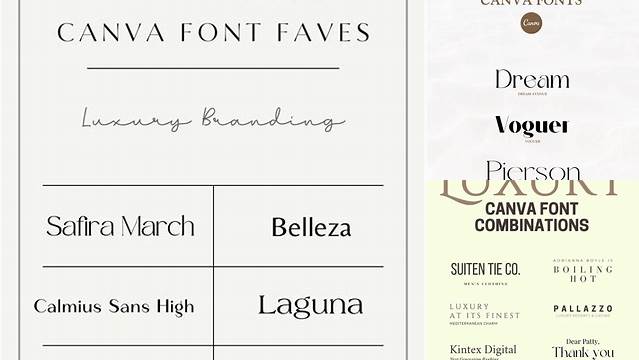
Luxury Fonts For Canva: Free Options
Understanding Luxury Fonts
Okay, guys, let's dive into the world of luxury fonts! What exactly makes a font luxurious? Well, it's not just about being fancy-schmancy. Luxury fonts often evoke a sense of elegance, sophistication, and high-end quality. Think about the fonts you see on designer brands, in high-fashion magazines, or on the logos of prestigious companies. They often have unique serifs, elegant curves, and a certain je ne sais quoi that screams class. These fonts aren't just visually appealing; they communicate a brand's identity and values. When you're using luxury fonts, you're not just choosing a typeface; you're choosing a visual voice. They can add a touch of glamour to your designs, making them stand out from the crowd. The psychology behind font choices is fascinating – the right font can influence how your audience perceives your message. So, when you're selecting a font for your project, especially in a platform like Canva, think about the feeling you want to convey. Do you want to exude confidence? Sophistication? Timelessness? A well-chosen luxury font can help you achieve that. We will explore how you can find these gems for free on Canva! Whether you're designing invitations, branding materials, or social media graphics, the right font can make all the difference.
Free Luxury Fonts Available on Canva
Canva, guys, is a treasure trove of design resources, and guess what? It's packed with free luxury fonts that can elevate your projects without breaking the bank. Let’s be real, who doesn’t love free stuff? Canva offers a fantastic selection, ranging from elegant serifs to modern sans-serifs that ooze sophistication. But, how do you find these hidden gems? One trick is to use specific keywords when searching within Canva's font library. Try terms like "elegant," "classic," "sophisticated," or even niche terms like "art deco" or "script fonts." You'll be amazed at the variety of options that pop up. Another great way to discover free luxury fonts is to explore Canva's design templates. Often, designers use premium-looking fonts that are actually available for free. By examining these templates, you can identify the fonts and then use them in your own designs. Moreover, Canva frequently updates its font library, so it's always a good idea to check back regularly for new additions. Don't just settle for the first font you see. Experiment with different options and see what resonates best with your overall design aesthetic. Remember, the goal is to find a font that enhances your message and adds a touch of luxury without costing you a penny. We'll delve deeper into specific font recommendations shortly!
Serif Fonts for a Luxurious Look in Canva
Serif fonts, folks, are the classic choice when you're aiming for a luxurious look. What are serifs, you ask? Those are the little decorative strokes at the end of the letters, and they can make a HUGE difference. Serif fonts often evoke a sense of tradition, elegance, and sophistication, making them perfect for projects that need a touch of class. Think about the fonts used in high-end magazines or on the logos of established brands – chances are, many of them are serif fonts. Within Canva, there are some fantastic free serif fonts that can give you that luxurious feel. For example, fonts like Playfair Display, Libre Baskerville, and Lora are excellent choices. They have a timeless quality and are incredibly versatile. Playfair Display, with its high contrast and elegant curves, is perfect for headings and titles. Libre Baskerville, a refined serif font, is great for body text and adds a touch of sophistication to any design. Lora, with its contemporary feel, works well for both headings and body text. When using serif fonts, consider the context of your design. Are you creating an invitation? A logo? A social media graphic? The right serif font can elevate your project, making it look polished and professional. Don’t be afraid to experiment with different sizes and weights to see what works best. A bold serif can make a strong statement, while a lighter weight can add a delicate touch. We’ll keep exploring how these can be combined effectively in the following sections.
Sans-Serif Fonts for a Modern Luxury Feel in Canva
Now, let’s talk about sans-serif fonts, guys! If you're aiming for a more modern and minimalist kind of luxury feel, sans-serif fonts are your best friends. Unlike serif fonts, sans-serif fonts don't have those little decorative strokes at the ends of the letters. This gives them a cleaner, more contemporary look, which can still scream luxury in the right context. Think about sleek, modern brands – many of them use sans-serif fonts to convey a sense of sophistication and innovation. Canva has a bunch of awesome free sans-serif fonts that you can use to achieve this look. Fonts like Montserrat, Open Sans, and Raleway are fantastic options. Montserrat, with its geometric design and clean lines, is incredibly versatile and works well for both headings and body text. Open Sans is another popular choice, known for its readability and friendly appearance. Raleway, with its elegant and slightly condensed form, adds a touch of sophistication to any design. When using sans-serif fonts for a luxury design, think about the overall aesthetic you’re going for. A minimalist design with a clean sans-serif font can be incredibly powerful. Consider the spacing between letters and lines, as this can significantly impact the overall look and feel. A well-spaced sans-serif font can exude elegance and professionalism. Pairing a strong sans-serif font with a subtle color palette can also create a luxurious and contemporary vibe. We'll explore the best ways to pair fonts later on, so stay tuned!
Script and Handwritten Fonts for an Elegant Touch in Canva
Okay, folks, let's spice things up with script and handwritten fonts! These fonts are amazing for adding an elegant and personal touch to your designs. Imagine wedding invitations, logos, or branding materials that need a dash of sophistication – script and handwritten fonts can be the perfect solution. They mimic the fluidity of handwriting, bringing a unique and artistic flair to your projects. Canva has a delightful collection of free script and handwritten fonts that can help you achieve this look. Fonts like Great Vibes, Alex Brush, and Pacifico are popular choices. Great Vibes, with its flowing and ornate style, is ideal for headings and invitations. Alex Brush, a bold and elegant script, adds a touch of sophistication to any design. Pacifico, with its relaxed and friendly vibe, is great for logos and branding. However, a word of caution: Script and handwritten fonts should be used sparingly. Overusing them can make your design look cluttered and difficult to read. It's best to use them for headings, titles, or short phrases, rather than for large blocks of text. When incorporating script and handwritten fonts, think about contrast. Pair them with a clean and simple sans-serif font for body text to create balance and readability. Also, consider the context of your design. Is it formal or informal? The style of script font you choose should reflect the overall tone. A delicate script might be perfect for a wedding invitation, while a bolder script might work better for a logo. Let's see how these can add that special je ne sais quoi to your projects!
Pairing Luxury Fonts for Maximum Impact in Canva
Alright, guys, let's get into the nitty-gritty of font pairing! Choosing a single luxury font is a great start, but pairing fonts effectively can take your design from good to amazing. Font pairing is the art of combining two or more fonts that complement each other, creating a harmonious and visually appealing design. It's like finding the perfect dance partners – each font should enhance the other. One of the golden rules of font pairing is to create contrast. Pair a serif font with a sans-serif font, or a bold font with a lighter font. This helps to create visual interest and hierarchy in your design. For example, you could pair Playfair Display (a serif font) with Montserrat (a sans-serif font) for a classic and elegant look. Or, you could combine a script font like Great Vibes with Open Sans for a touch of sophistication with readability. Canva makes font pairing easy by suggesting font combinations within its editor. When you select a font, Canva will often recommend other fonts that pair well with it. This is a fantastic resource for beginners who are just starting to experiment with font pairing. Another tip is to limit the number of fonts you use in a single design. Stick to two or three fonts at most to avoid overwhelming the viewer. A consistent font pairing throughout your design can create a cohesive and professional look. Ultimately, guys, font pairing is about experimentation. Don’t be afraid to try different combinations and see what works best for your project. The goal is to create a visual hierarchy that guides the reader’s eye and communicates your message effectively. Let's make those fonts dance together perfectly!
Finding Pre-Designed Canva Templates with Luxury Fonts
Okay, folks, if you're feeling a bit overwhelmed by the font selection process, Canva has a fantastic shortcut for you: pre-designed templates! These templates are created by professional designers and often feature stunning luxury font combinations that you can use as a starting point. Think of it as having a cheat sheet for awesome design. Canva's template library is HUGE, covering everything from social media graphics to presentations to invitations. To find templates with luxury fonts, try using keywords like “elegant,” “sophisticated,” “minimalist,” or even specific styles like “art deco” or “modern luxury” in your search. Once you find a template you like, you can easily customize it to fit your needs. You can change the colors, images, and, of course, the fonts. This is a great way to discover new fonts and font pairings that you might not have considered otherwise. Plus, it can save you a ton of time and effort. Instead of starting from scratch, you can leverage the expertise of professional designers and adapt their work to your own projects. When browsing templates, pay attention to the font combinations used. Note which fonts are paired together and how they are used in the design. This can give you inspiration for your own font pairings. Remember, you don't have to stick to the template exactly. Feel free to experiment and make it your own. Templates are a fantastic resource for both design inspiration and time-saving, especially when you're hunting for that luxury font magic!
Using Canva's Brand Kit for Consistent Luxury Font Usage
Let’s talk branding, guys! If you're serious about creating a consistent and luxurious brand identity, Canva's Brand Kit feature is your new best friend. A Brand Kit allows you to save your brand's logos, color palettes, and, most importantly, fonts in one convenient place. This means that every time you create a design, you can easily access your chosen luxury fonts and maintain a consistent look and feel across all your materials. Think of it as your brand's visual bible. To set up your Brand Kit in Canva, simply go to the Brand Kit section in your account settings. From there, you can upload your logos, select your brand colors, and choose your brand fonts. You can even upload custom fonts if you have a Canva Pro account. Once your Brand Kit is set up, your chosen fonts will be readily available in the font dropdown menu whenever you're working on a design. This saves you time and ensures that you're always using the right fonts for your brand. Consistency is key when it comes to branding, especially when aiming for a luxury aesthetic. By using the same fonts across all your materials – from your website to your social media graphics to your business cards – you create a cohesive and professional image. Canva's Brand Kit makes it incredibly easy to achieve this consistency. It's a small investment of time that can pay off big in the long run, ensuring your brand always exudes that luxurious vibe you're aiming for.
Combining Free Canva Elements with Luxury Fonts for Enhanced Designs
Alright, folks, let's talk about taking your Canva designs to the next level! Using luxury fonts is a fantastic start, but combining them with other free Canva elements can truly elevate your work. Think of it as adding the perfect accessories to a killer outfit. Canva offers a vast library of free elements, including graphics, photos, illustrations, and more. These elements can add visual interest, context, and personality to your designs. When you're aiming for a luxury aesthetic, the key is to choose elements that complement your fonts and overall design style. For example, if you're using a classic serif font, you might pair it with elegant illustrations or high-quality stock photos. If you're using a modern sans-serif font, you might opt for clean geometric shapes or minimalist graphics. The goal is to create a harmonious balance between your fonts and your elements. Overcrowding your design with too many elements can detract from the luxury font you've chosen. Less is often more when it comes to achieving a sophisticated look. Consider using white space effectively to give your design room to breathe. This can help to highlight your fonts and elements, making them stand out even more. Canva's search filters are your best friend when looking for elements. Use keywords like